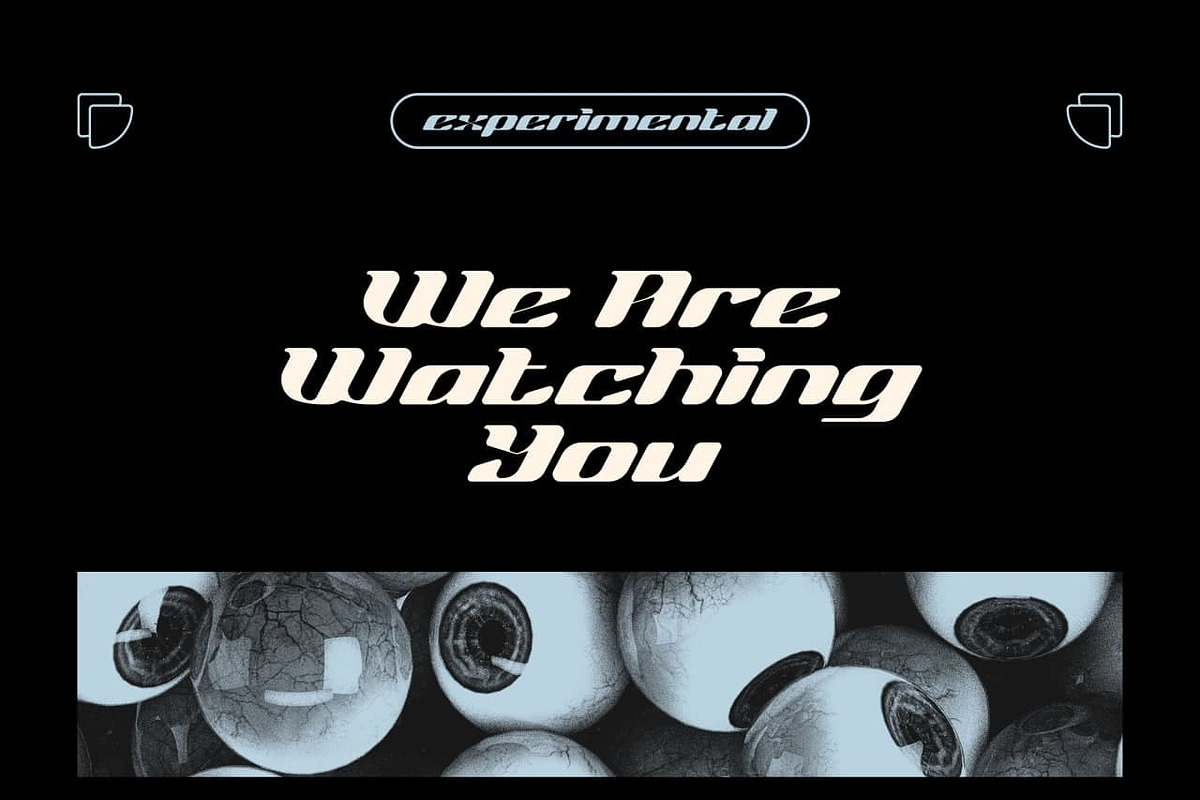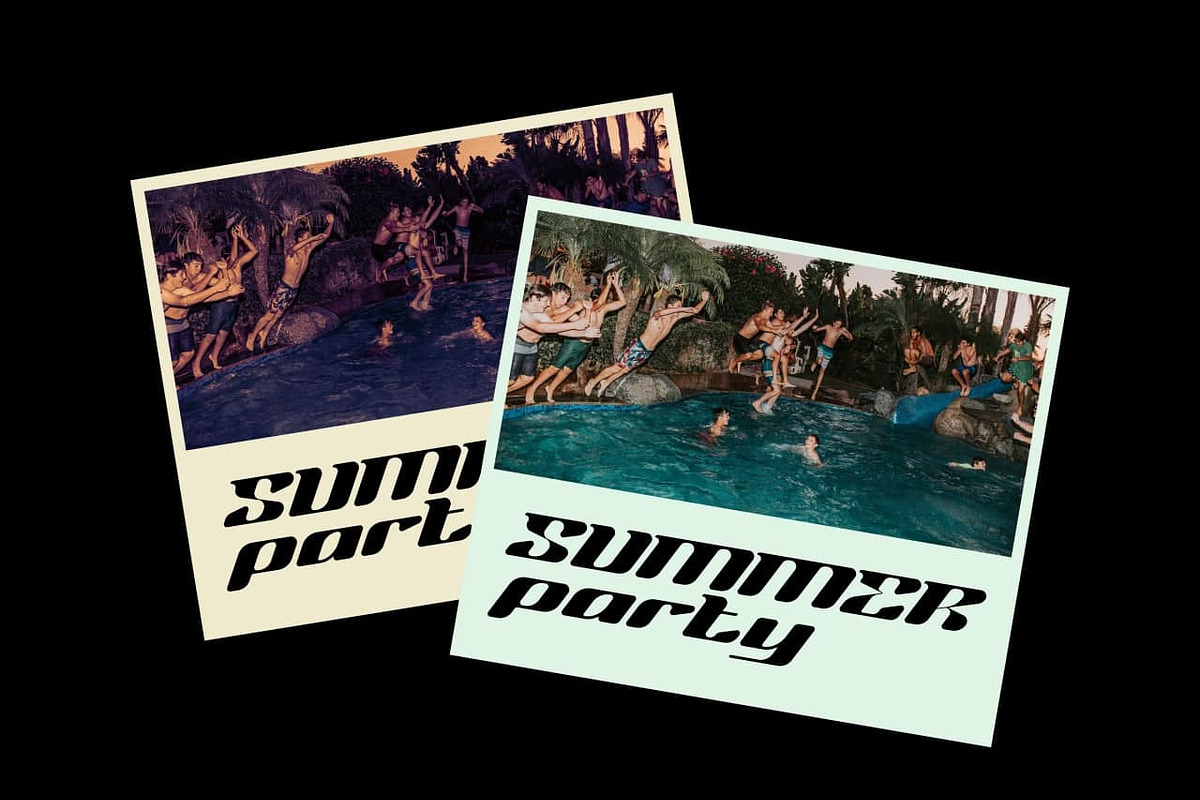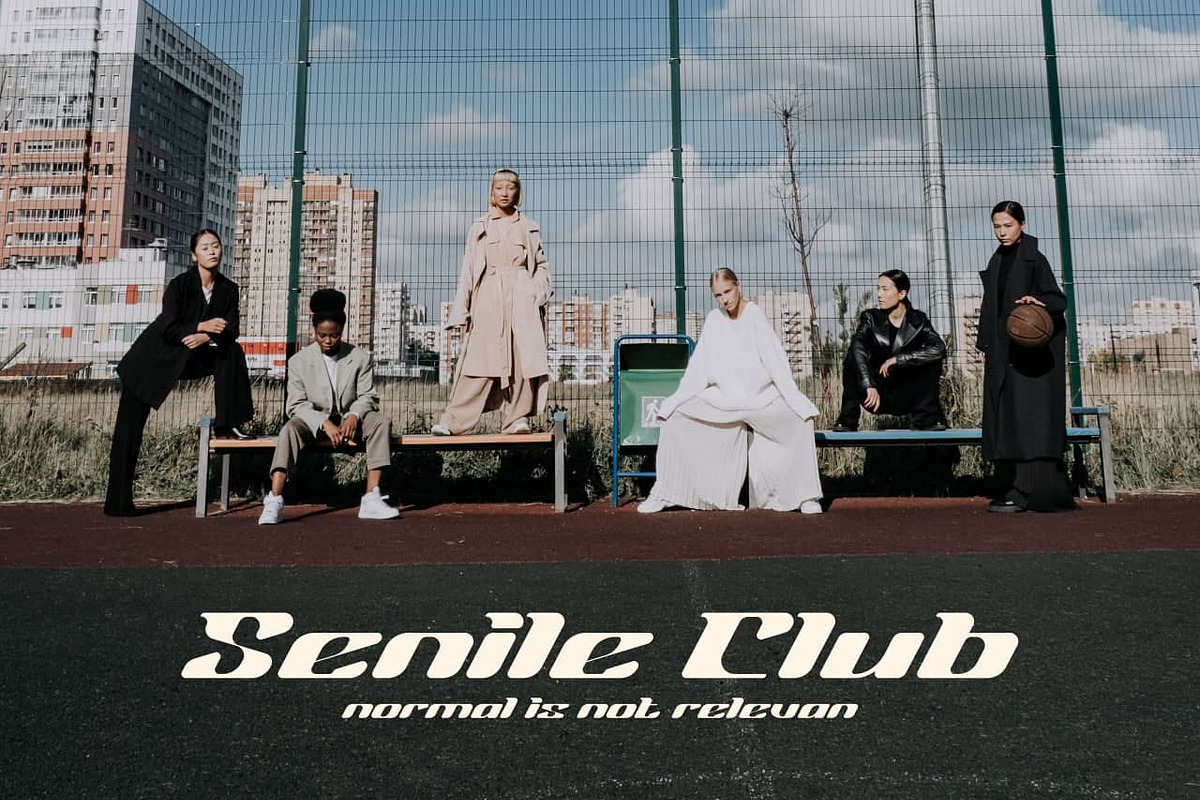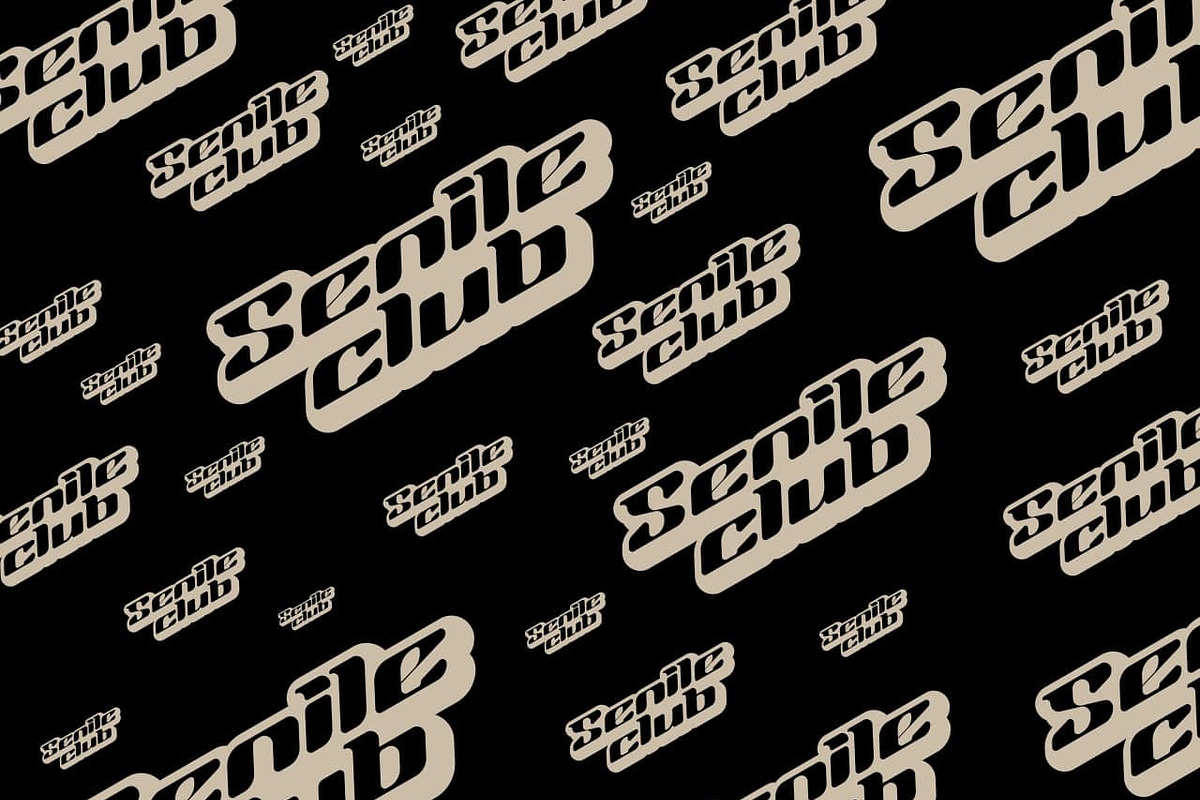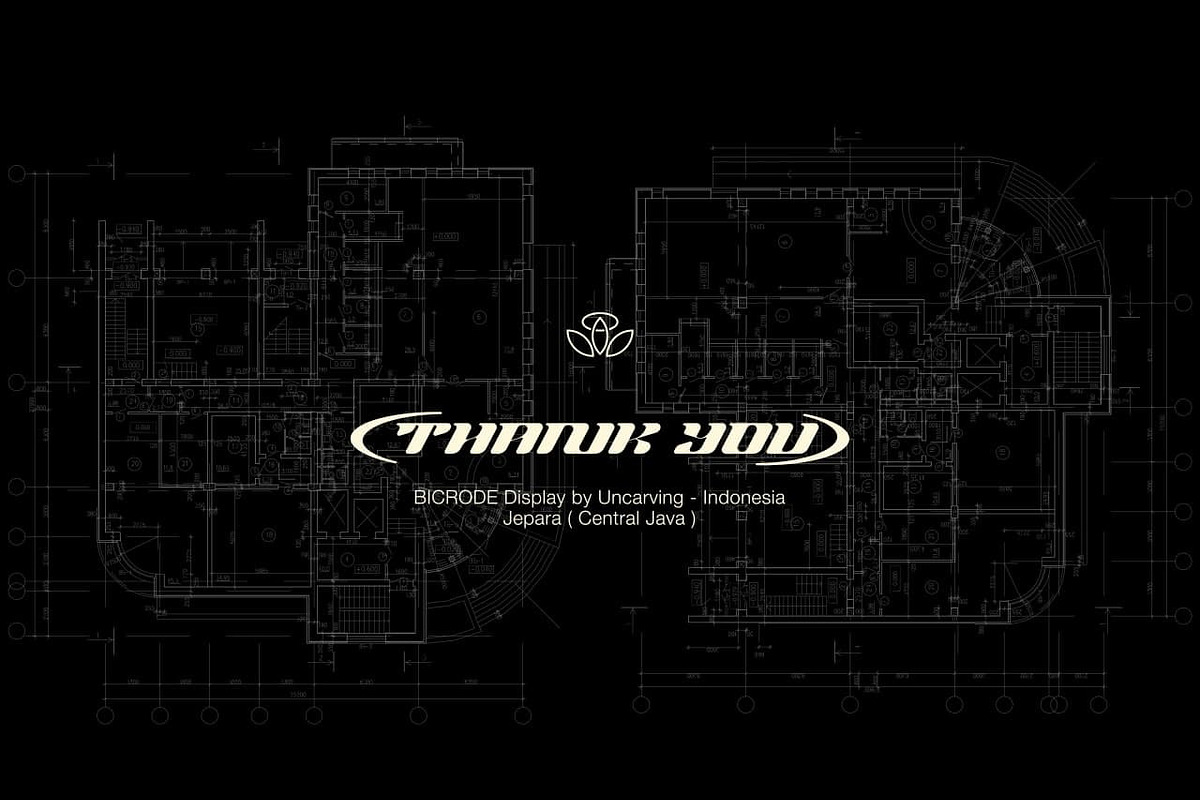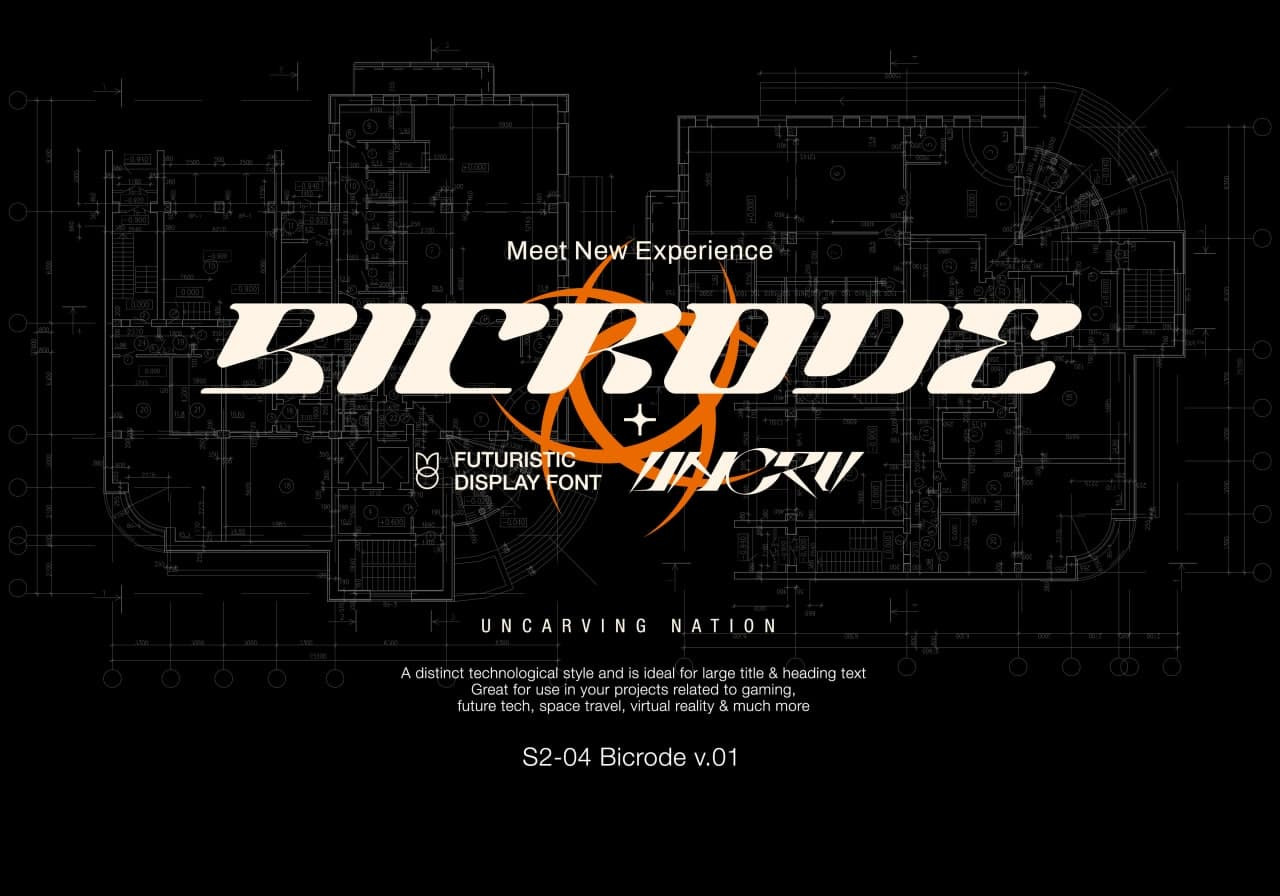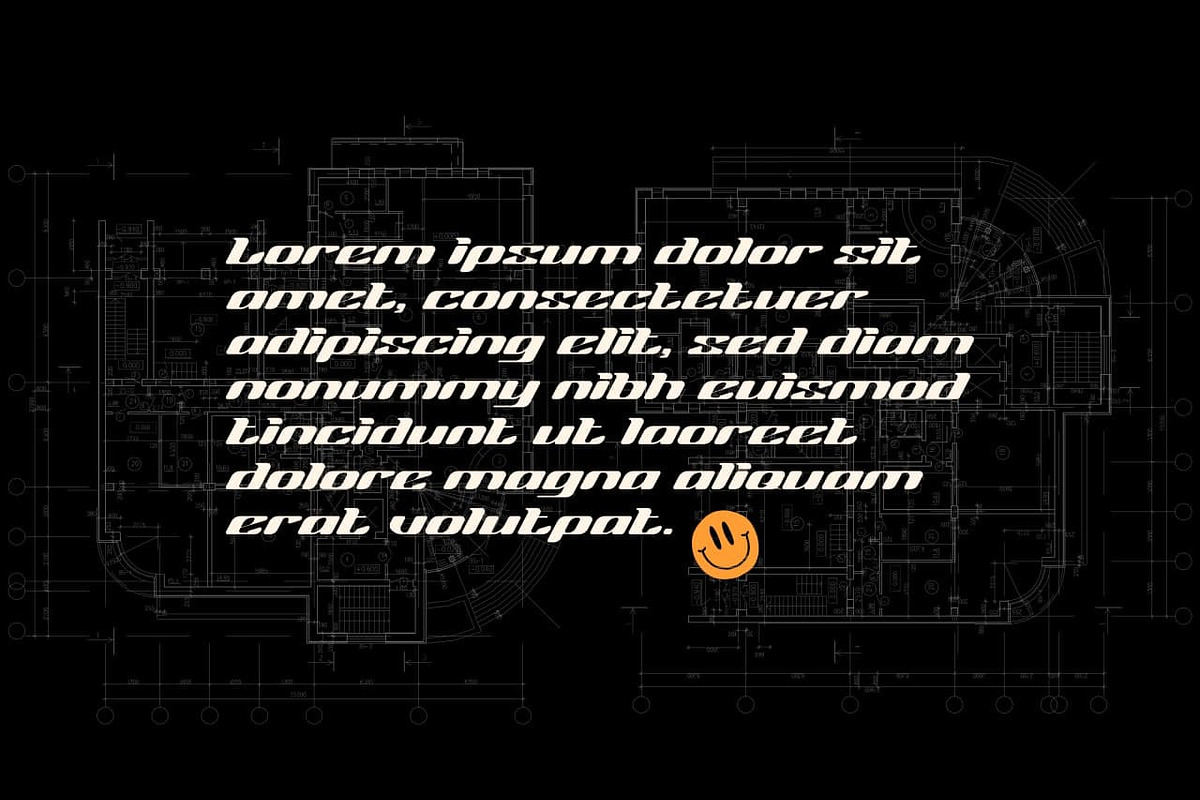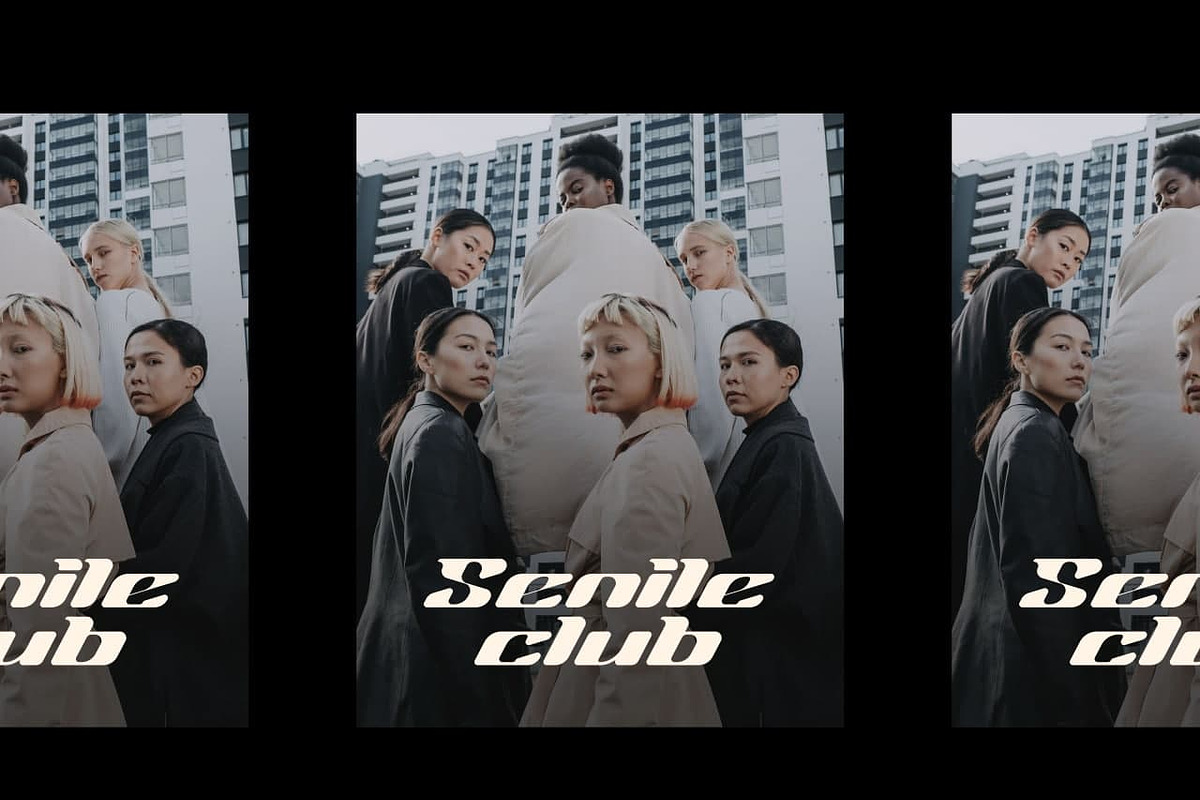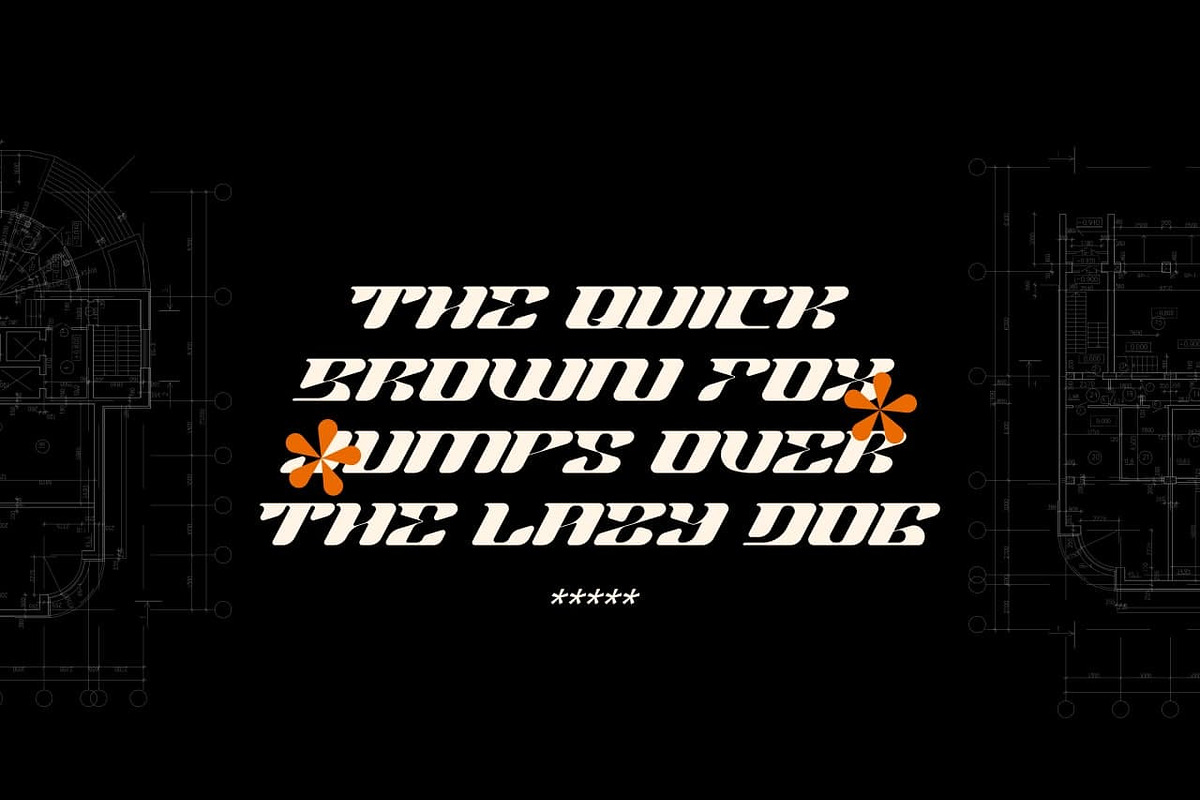
Bicrode - Display Font
"BICRODE" is a font designed by uncarving Inspired by the modern bold theme with italic touch keeping the simplicity and unique shapes Great for use in your projects related to gaming, future tech, space travel, virtual reality & much more!